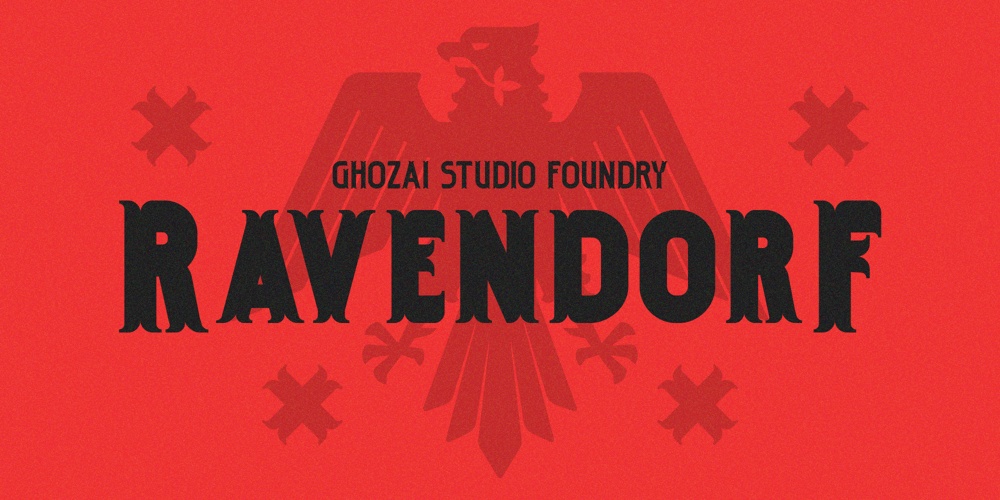
Ravendorf Font Family was designed by Manzur Ghozaali and published by Ghozai Studio. Ravendorf contains 16 styles and family package options. Ravendorf is the simple and bold display font for any of your projects. Ravendorf is inspired by Vintage typography. A bold appearance makes impactful typographic applications. Ravendorf comes in a wide range of styles, 16 styles (8 plains and 8 italics), from thin to black, and the italic version. Ravendorf is also supported with many Opentype features and is multilingual to support any needs. Ravendorf is ideal for sports, headlines, titles, signage, branding, and strong designs that require a big impact.